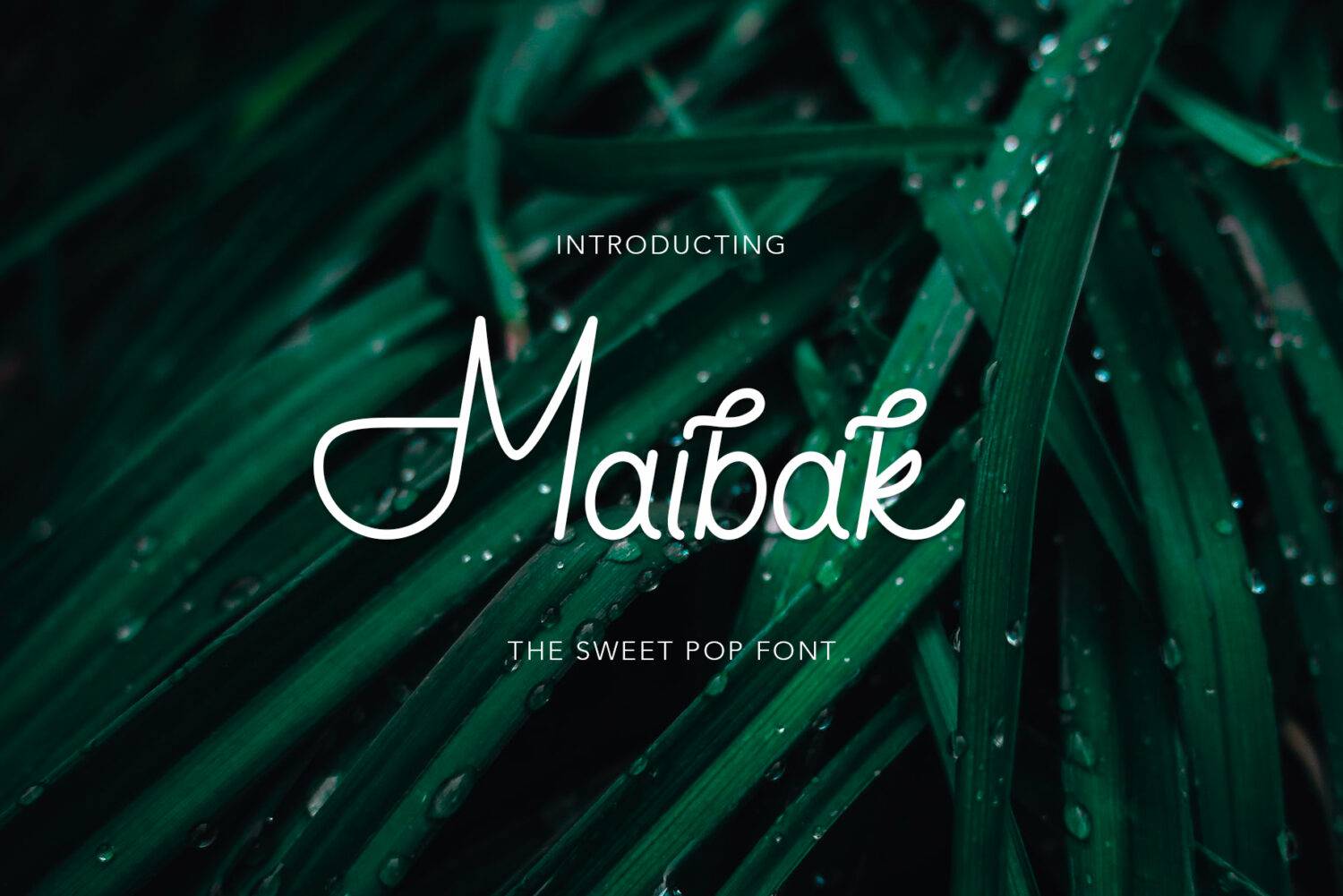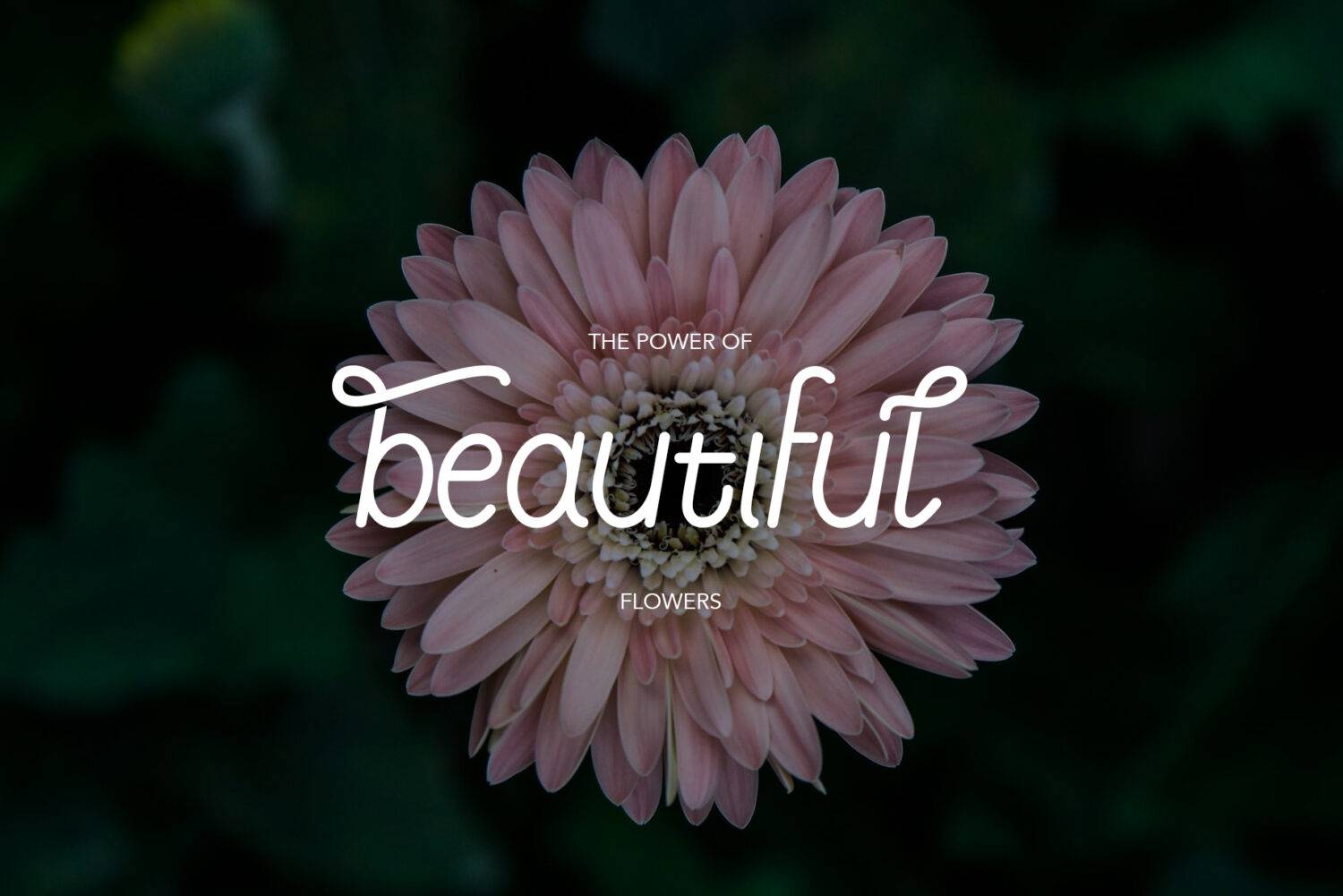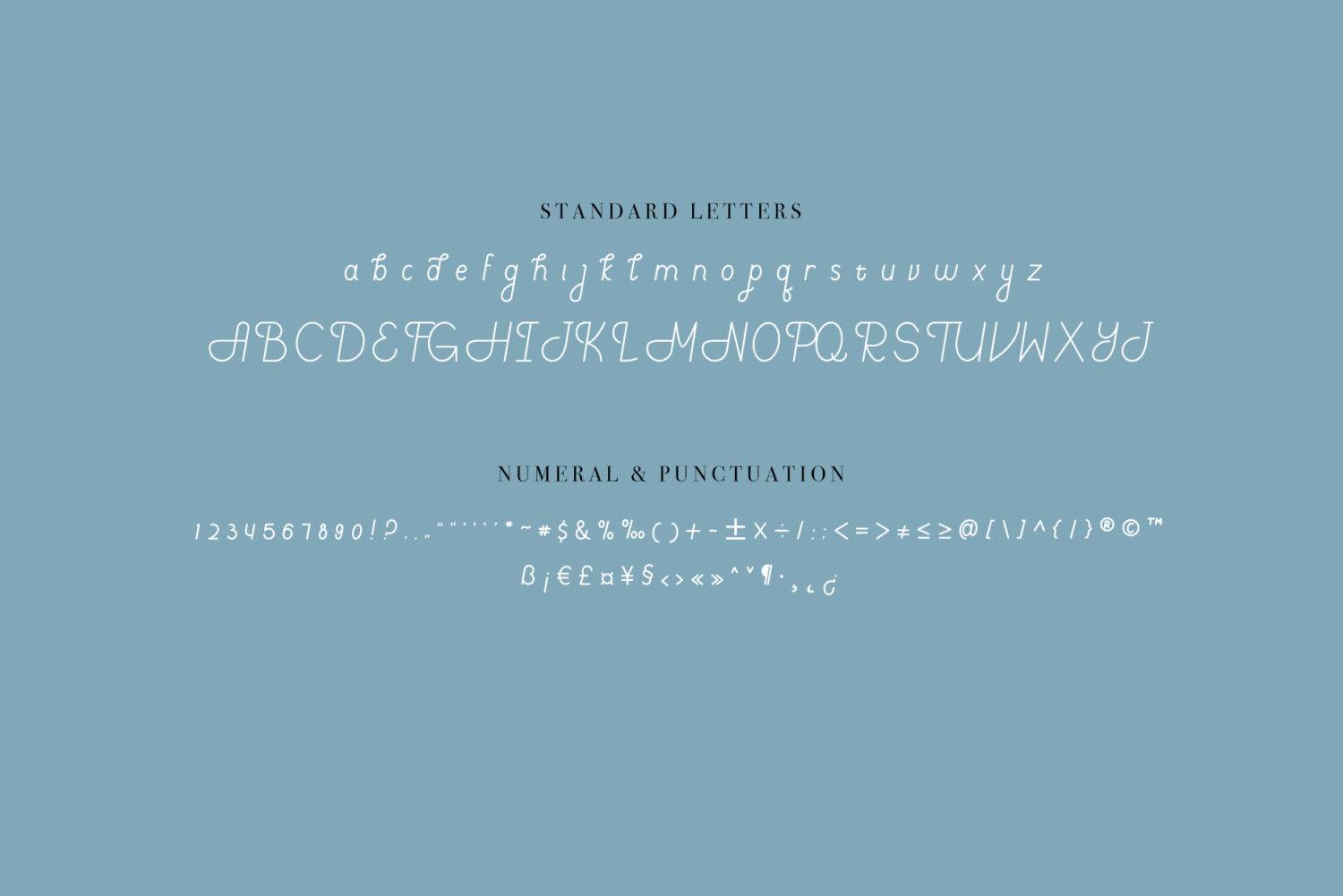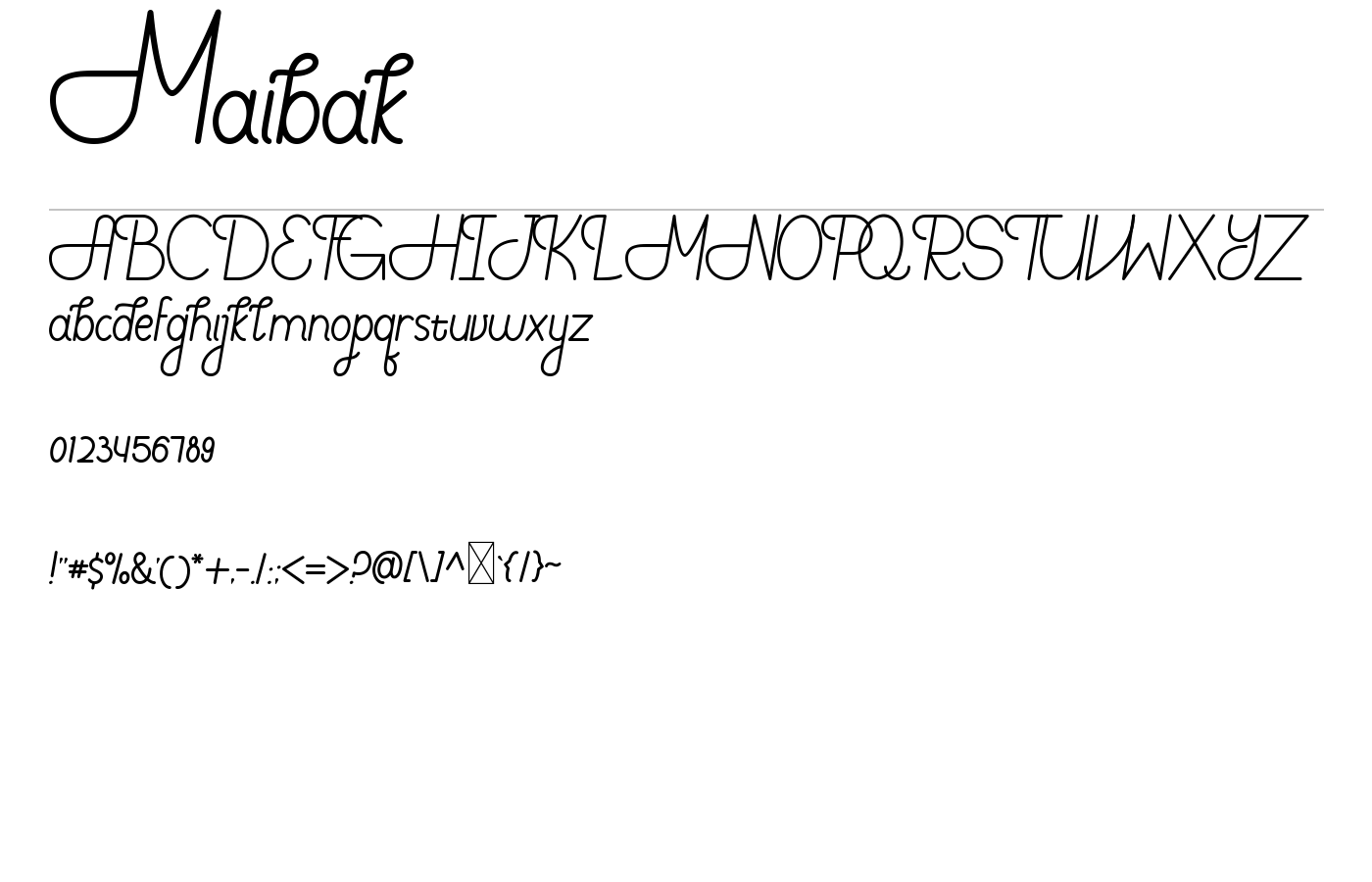
Maibak is a delicate, elegant script font with a narrow, tall structure and smooth, flowing strokes that give it a refined and sophisticated look. Its thin lines and distinctive loops make it ideal for creative branding, invitations, and stylish headlines where a touch of grace and subtle personality is desired. This font works well in projects that call for a modern yet artistic flair, combining readability with decorative charm.
| Font family | Maibak Font |
| Designer | Aidil Muladha |